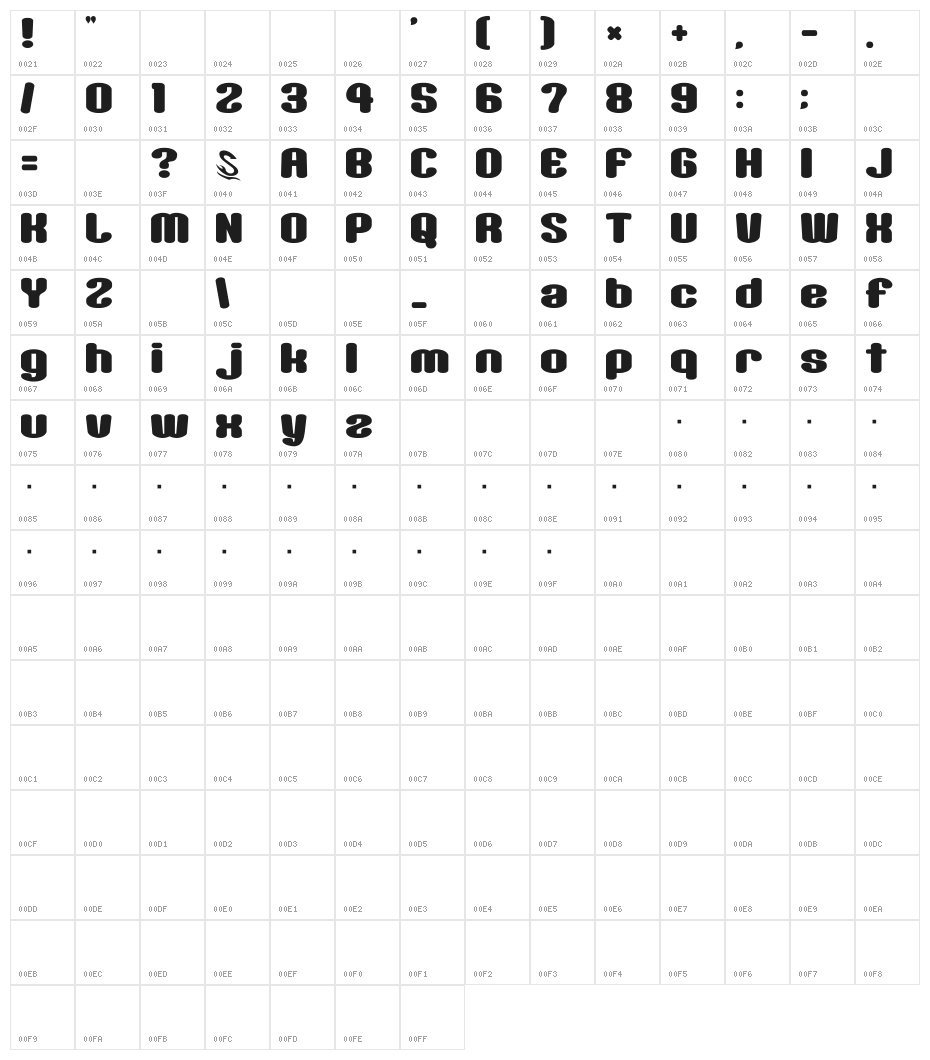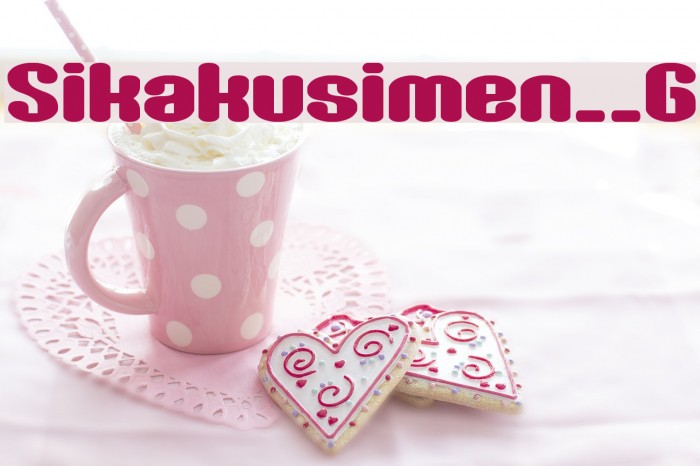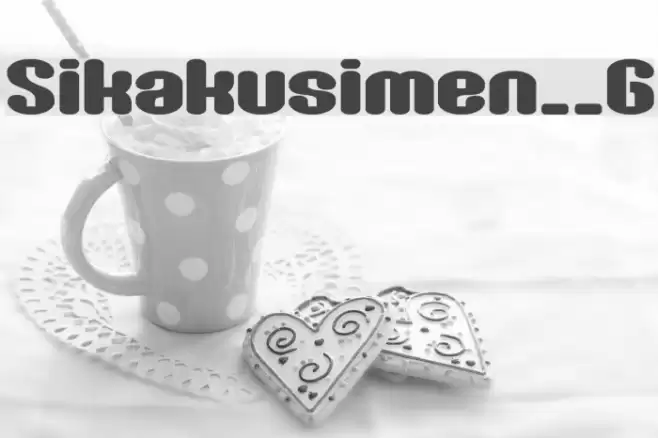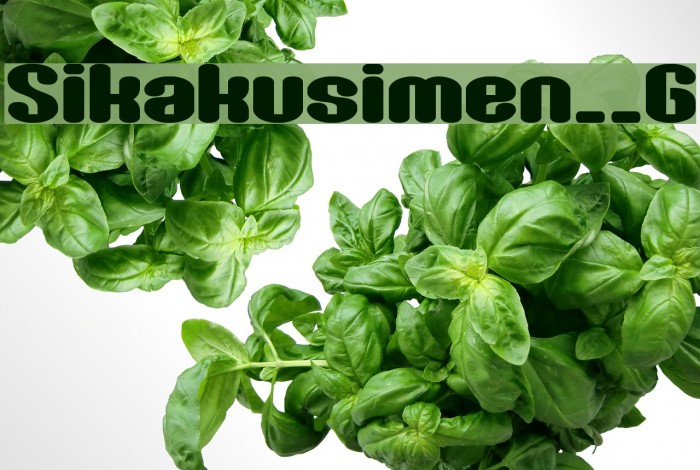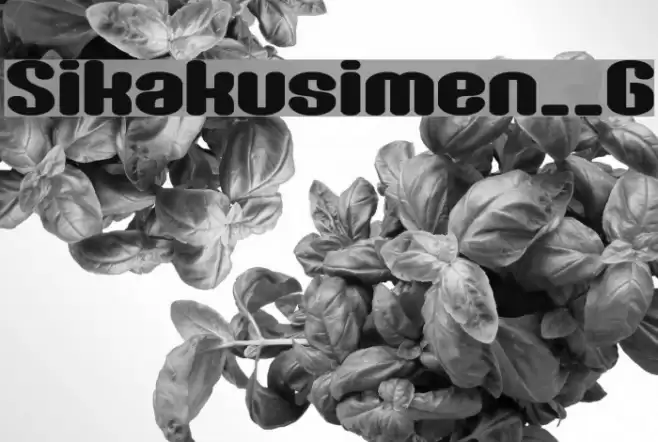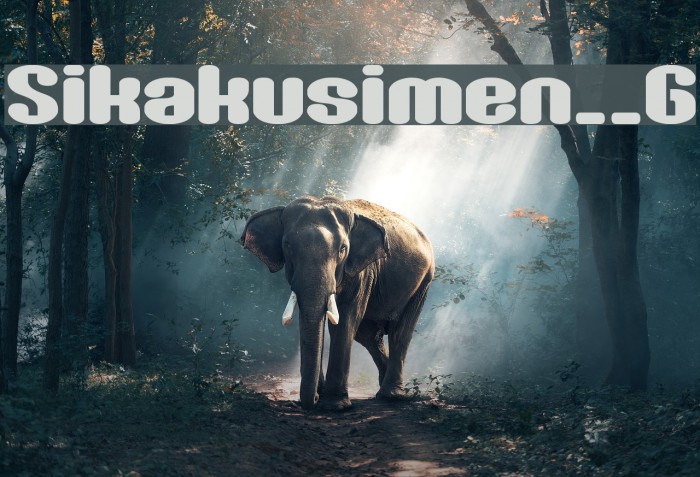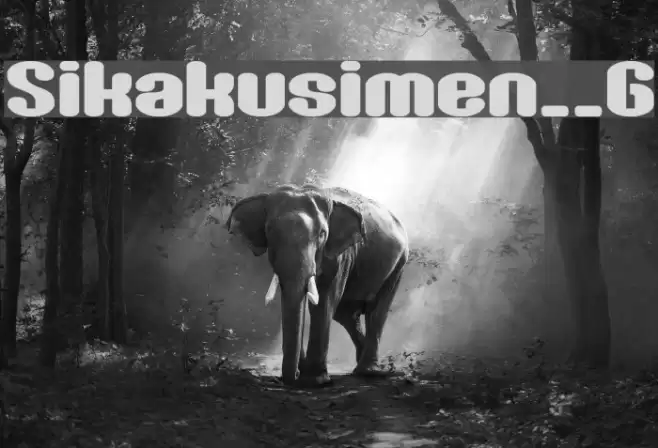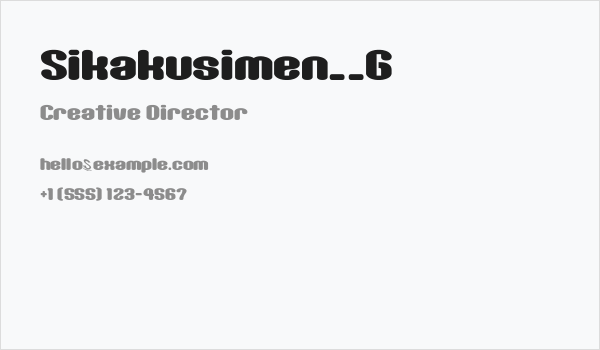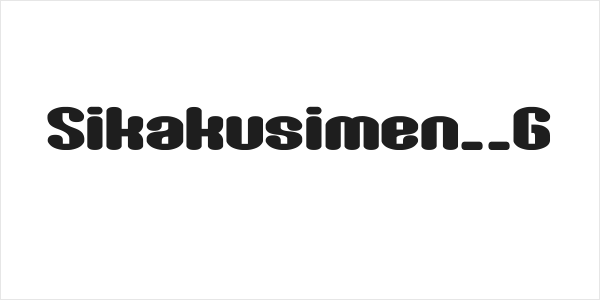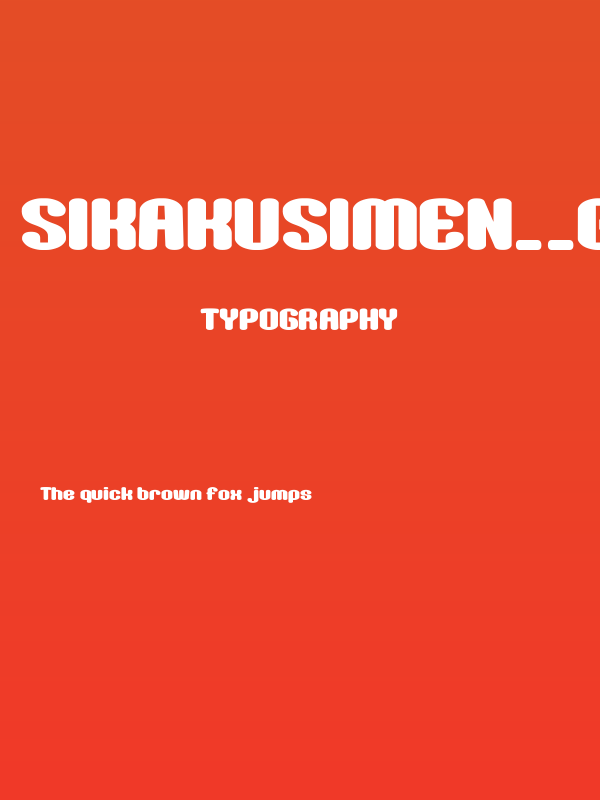
Sikakusimen__G Font
Sikakusimen__G Description
This font features a bold, rounded style with a playful and modern aesthetic. The characters are uniformly thick, giving them a strong presence on the page. The rounded edges and consistent stroke width create a friendly and approachable look, making it suitable for a variety of creative applications. The uppercase and lowercase letters maintain a consistent style, with the lowercase letters mirroring the boldness of the uppercase. Numbers and special characters are designed to match the overall style, ensuring a cohesive appearance across all text elements.
| Proposed Projects | Ideal for branding, posters, children's books, and playful graphic design projects. |